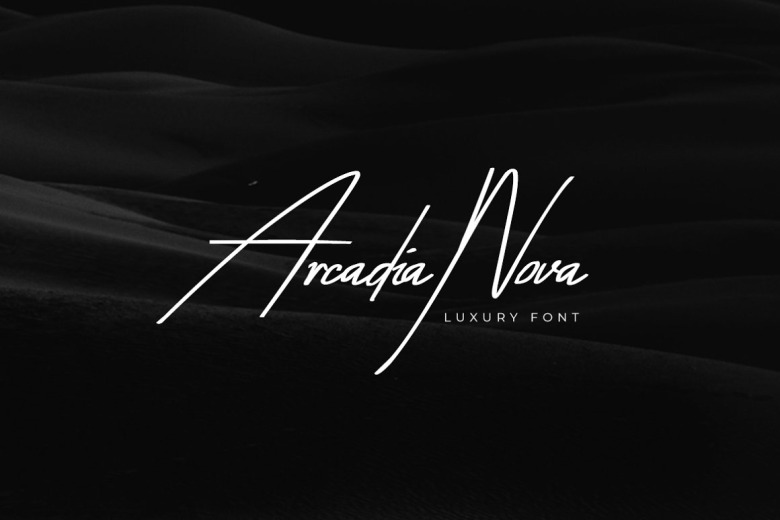
Arcadia Nova Font
Arcadia Nova is a Gorgeous handwritten font ideal for luxe branding, wedding invites, greeting cards, and promotional graphics. This hand crafted font give the best type styles and shapes for your work.
Arcadia Nova Handwritten Font